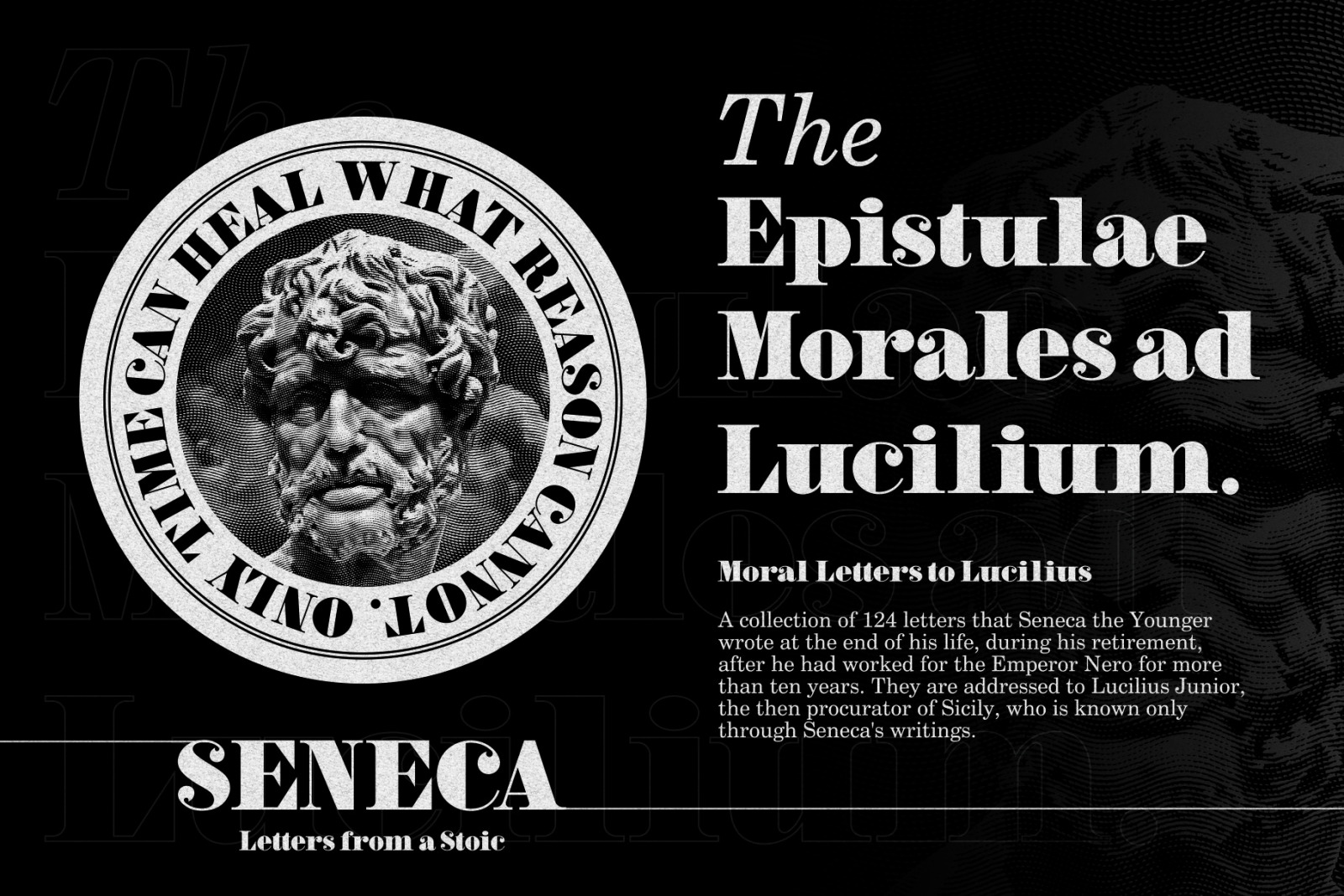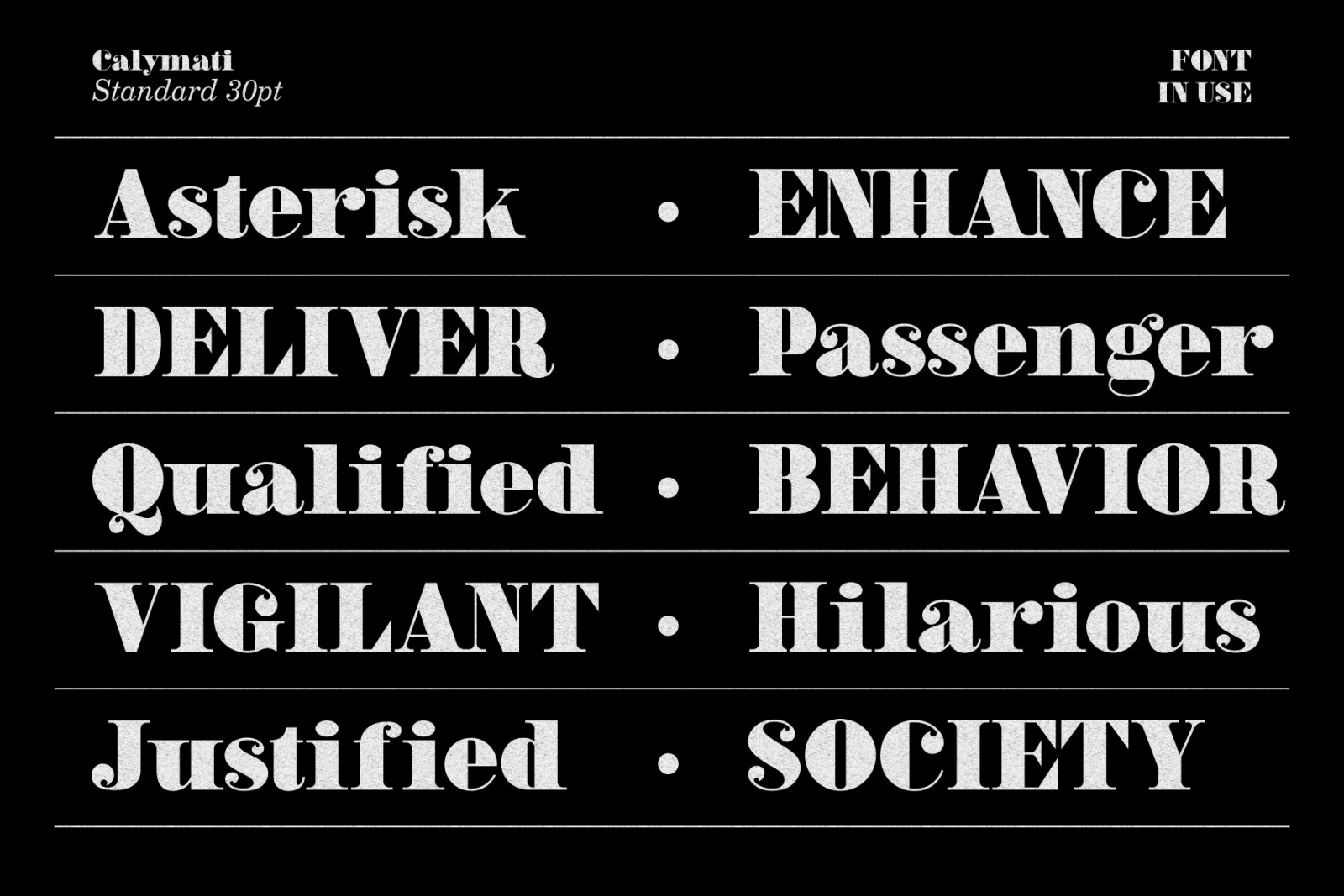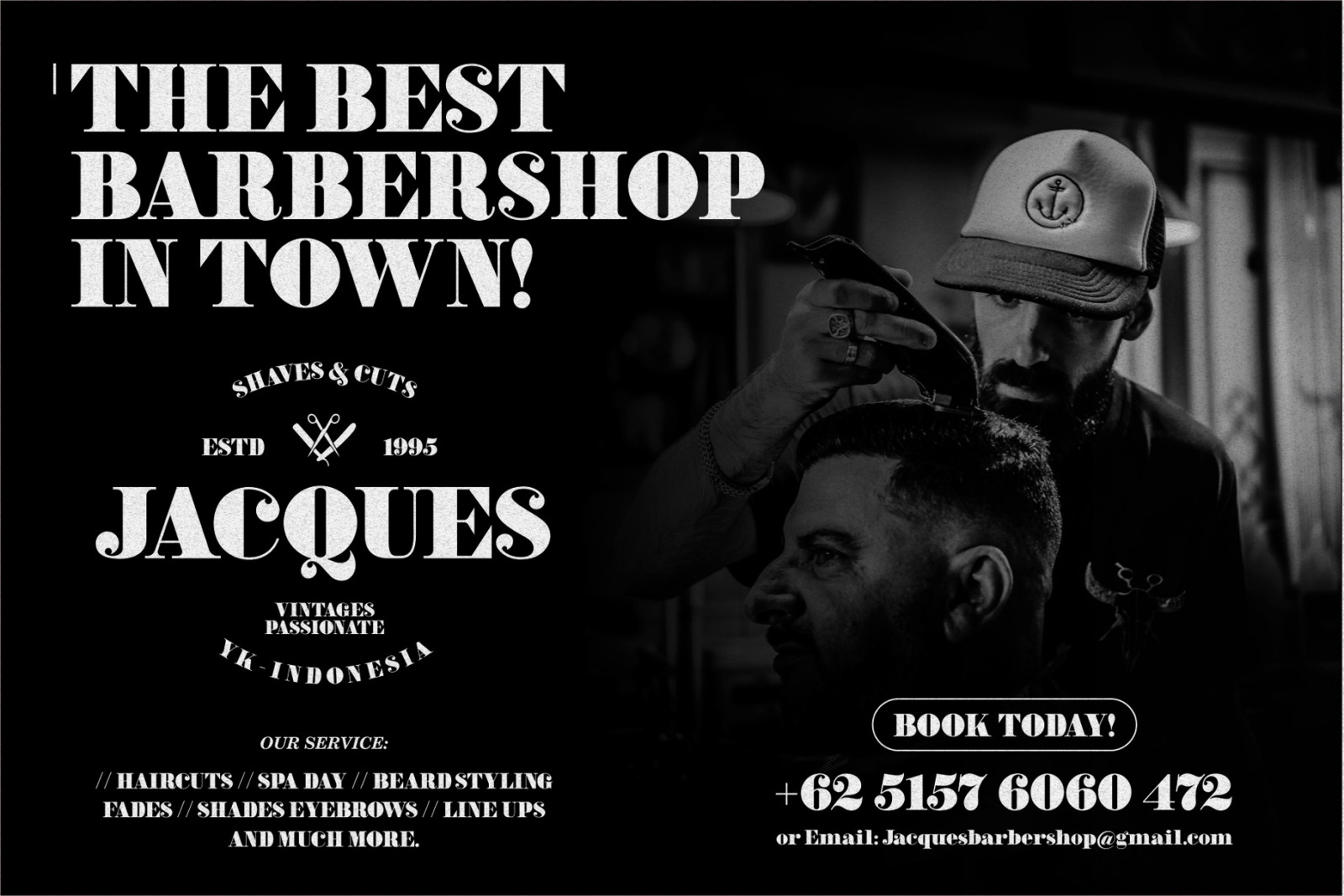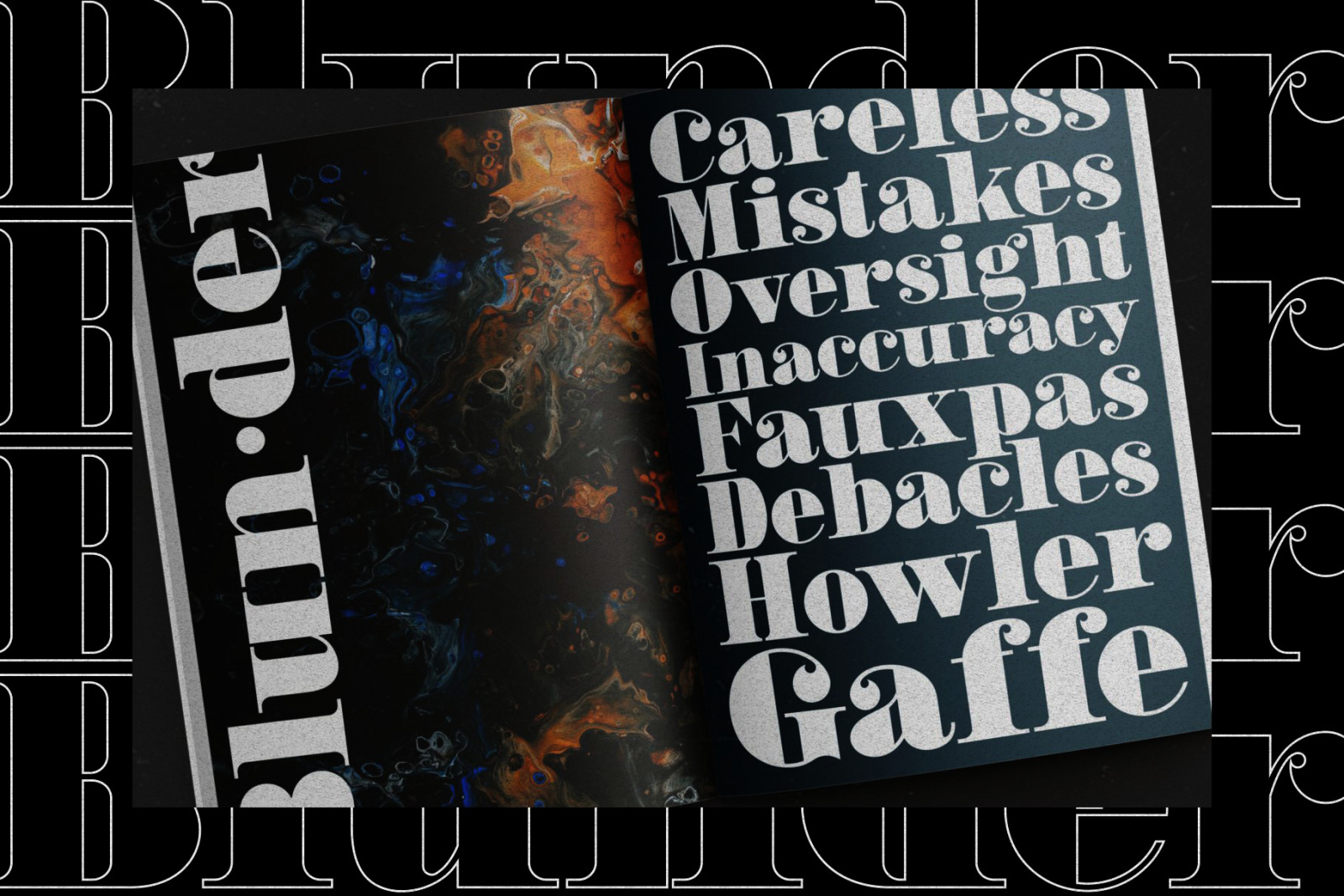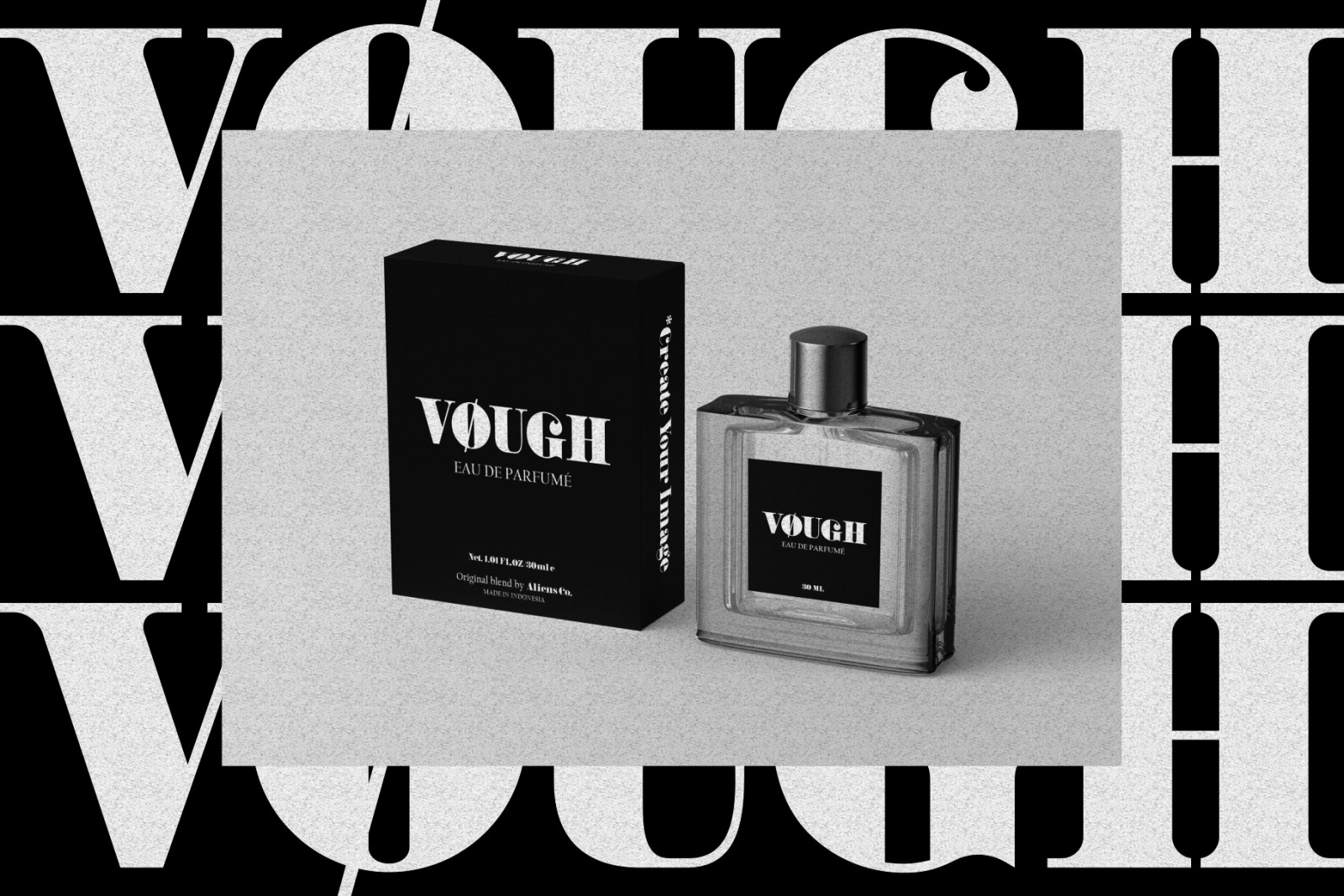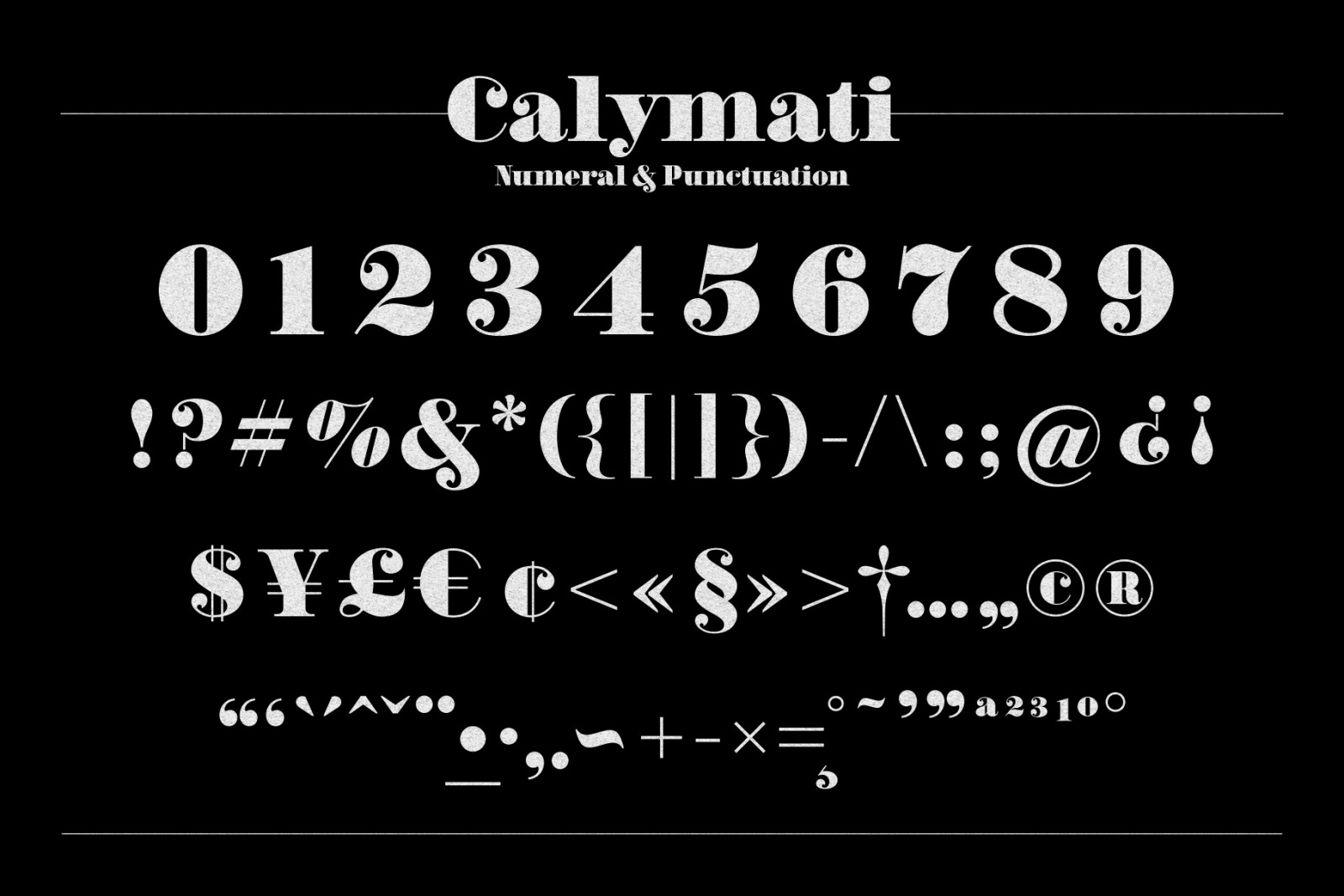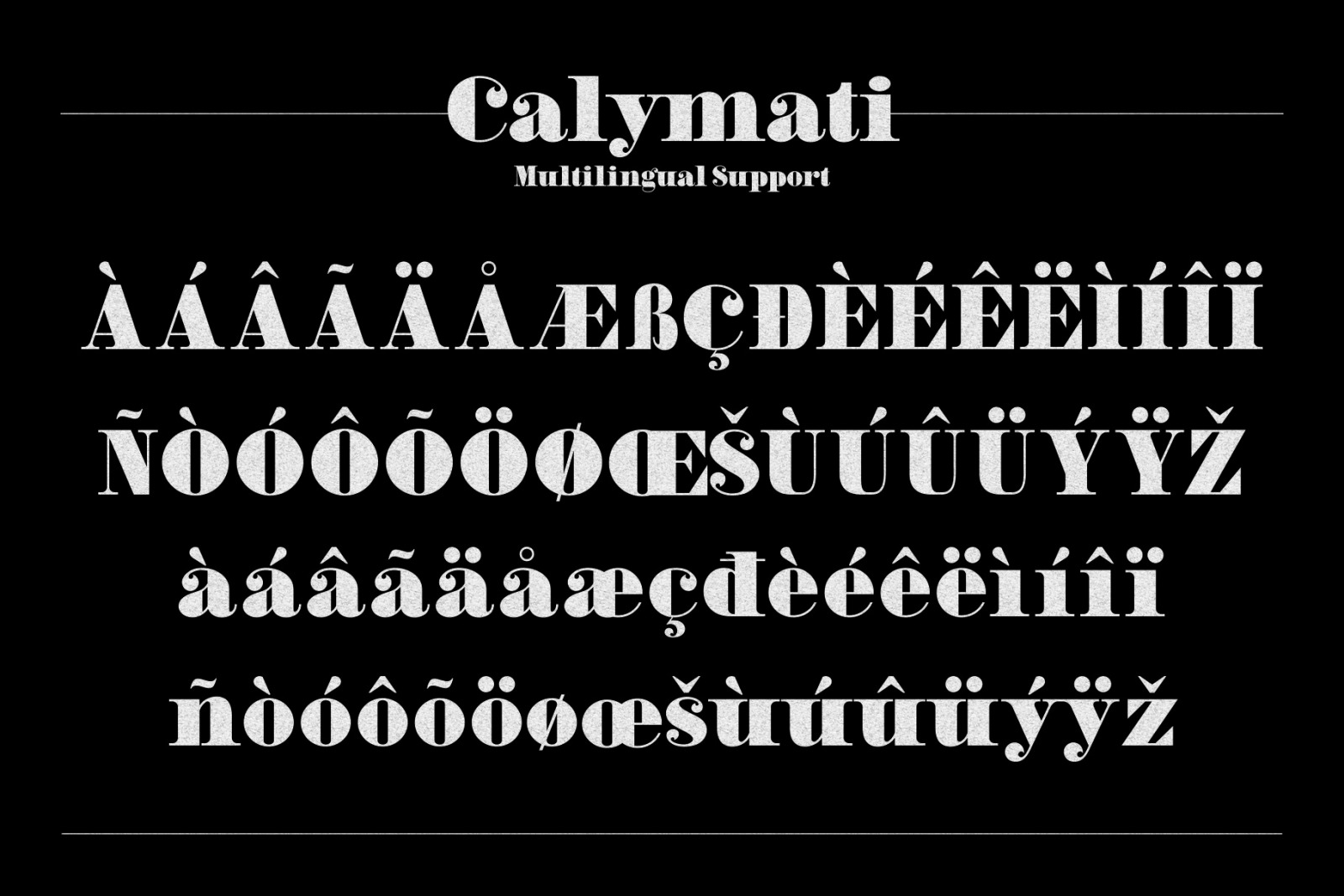
Calymati Font
CALYMATI is a bold, vintage-style font that has beautiful curves. This font is basically a classic serif font that is thick and has a slightly beautiful feature because the strokes have beautiful bends so that even though it is sturdy it still has a beauty side, it is very suitable for vintage designs such as a brand logo badge, liquor label, but also can for more modern designs like magazine headlines.